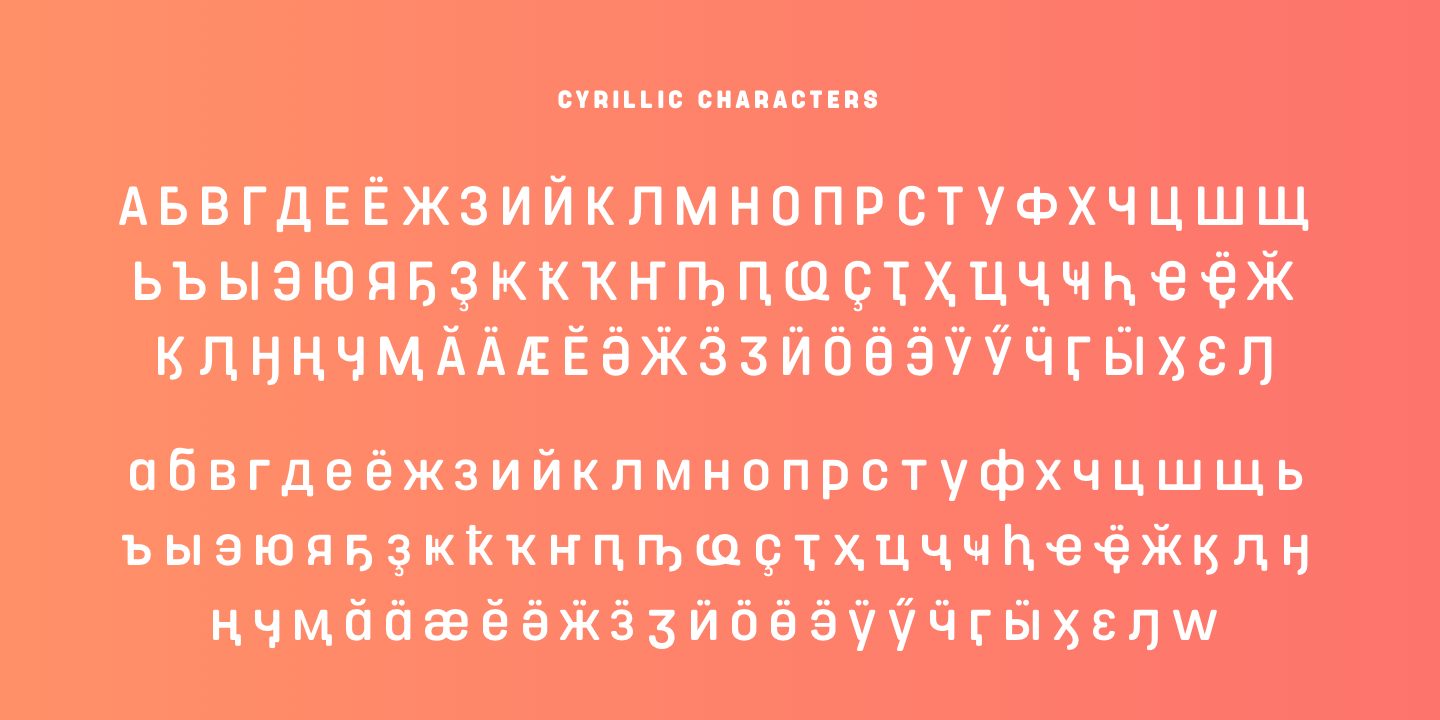
Project Soft Font is a contemporary and friendly sans-serif typeface, characterized by its rounded edges and approachable aesthetic. This modern design makes it an excellent choice for a wide variety of projects seeking to convey warmth, innovation, and user-friendliness. Envision it perfect for tech startup branding, engaging mobile app interfaces, cheerful children's book illustrations, comfortable website designs, approachable packaging for consumer goods, and clear, inviting educational materials. Its inherent softness and excellent readability ensure that your message is communicated clearly and with a gentle touch, making it ideal for creating a welcoming and accessible visual experience across all platforms.
What makes Project Soft Font truly exciting is its ability to blend modern professionalism with an inviting human touch. The subtle rounded corners on its letterforms reduce visual harshness, creating a friendly and approachable feel that can instantly put users at ease. This makes it particularly effective for brands that want to appear innovative yet relatable, or for content that needs to be easily digestible and non-intimidating. It’s a font that doesn't just display text; it builds a bridge of connection with your audience, ensuring your communication is not only understood but also felt with a sense of comfort and ease. Project Soft Font is a powerful tool for crafting designs that are both cutting-edge and universally appealing.
The Project Soft Font family typically offers a range of weights and styles to ensure maximum versatility for designers. You'll often find it includes a spectrum from light to regular, medium, and bold, allowing for distinct typographic hierarchy and emphasis within your designs. Corresponding italic styles are also commonly available, providing robust options for varied text presentation. This extensive family ensures that Project Soft Font Free Download can adapt seamlessly to diverse design challenges, from subtle body text in an app to bold headlines on a website, all while maintaining a consistent and harmonious visual language. Its broad character set usually covers a wide range of Latin characters, numbers, and extensive punctuation, making it suitable for international projects and diverse textual layouts.